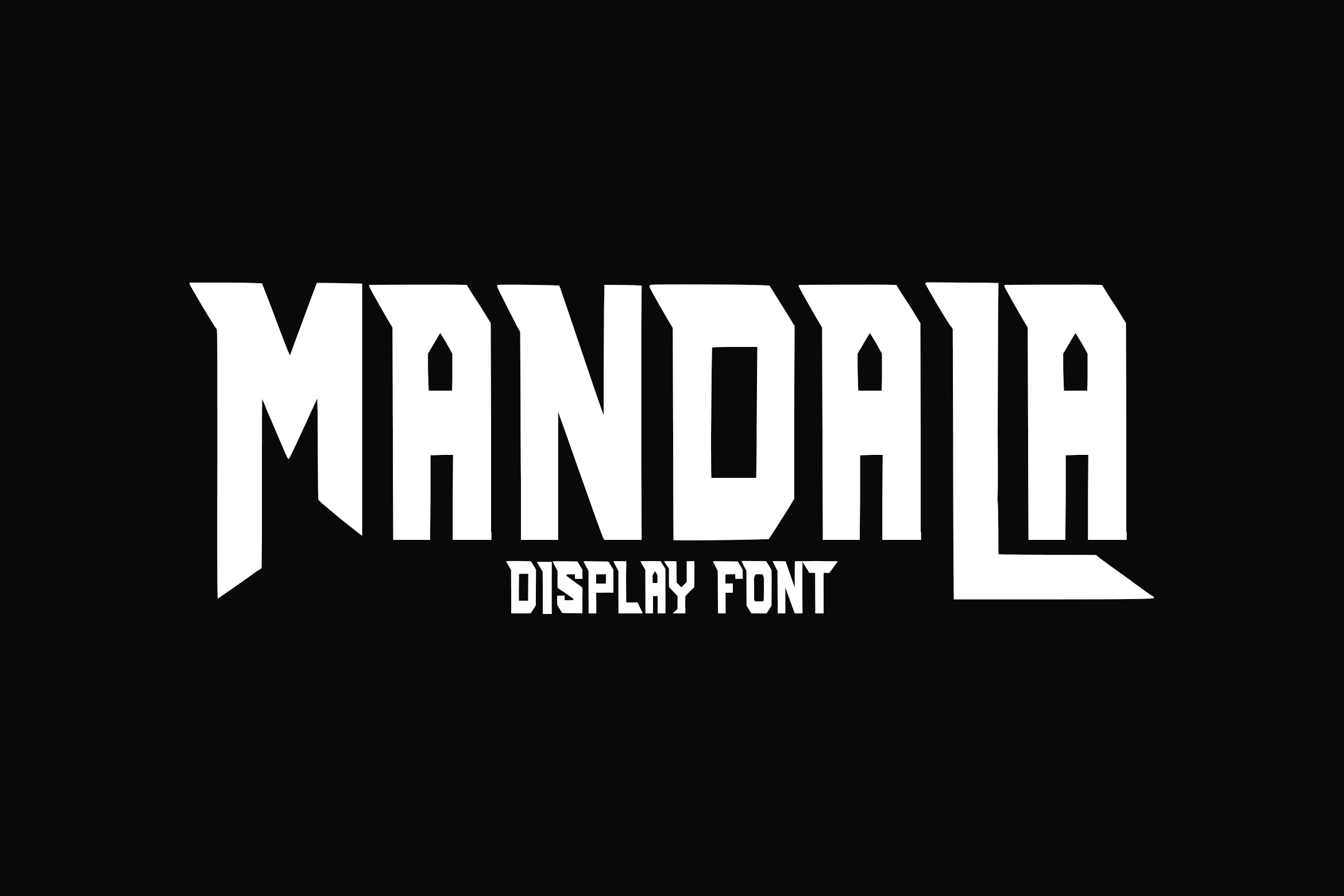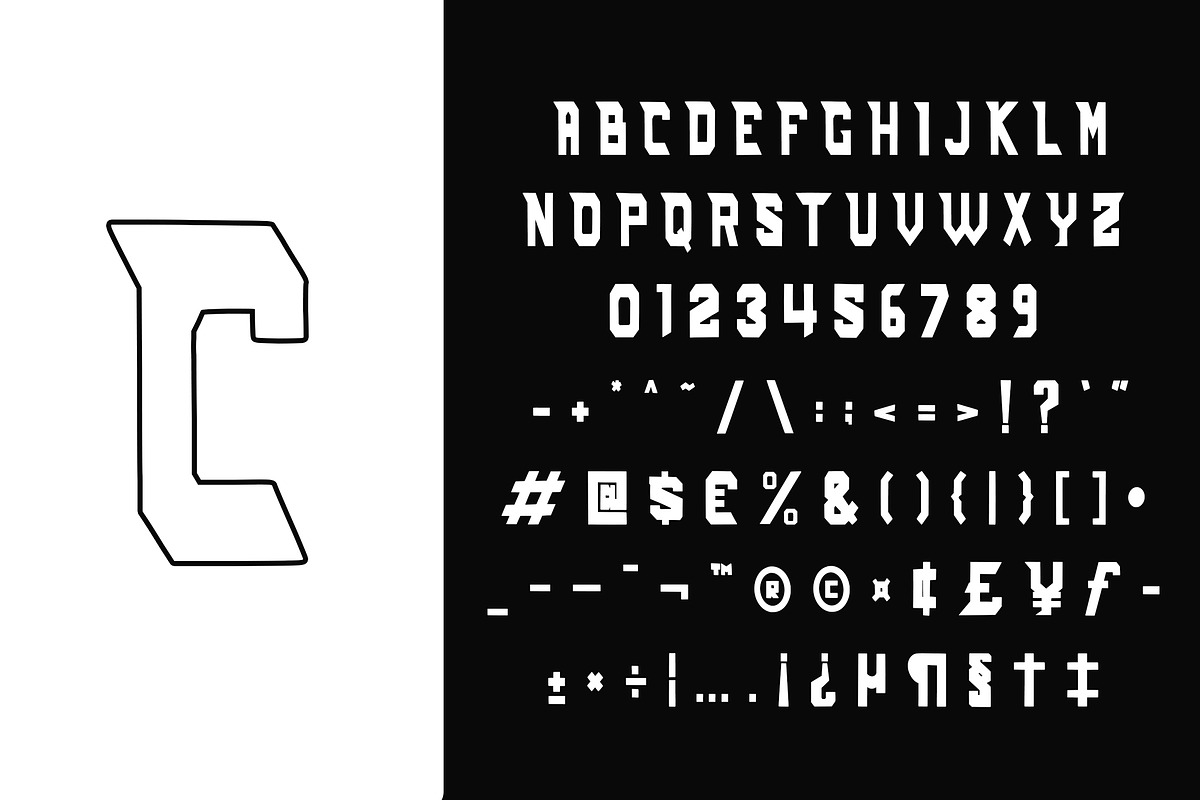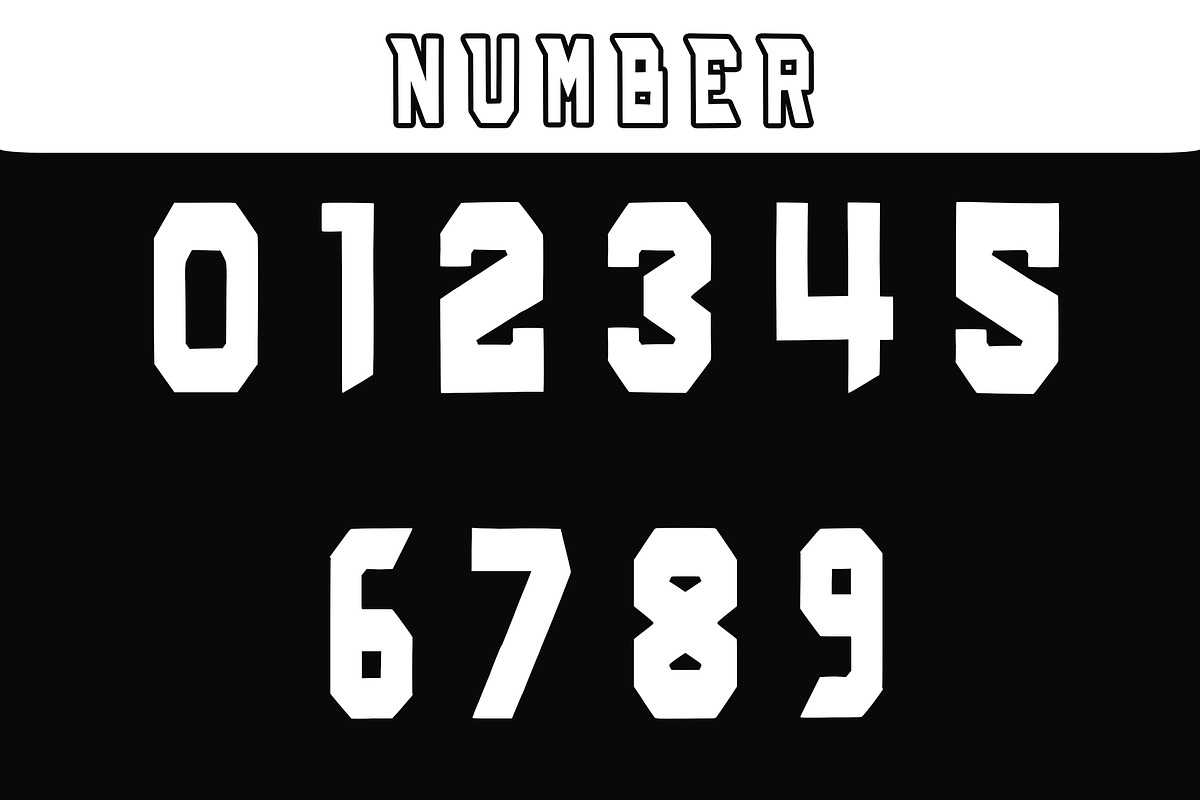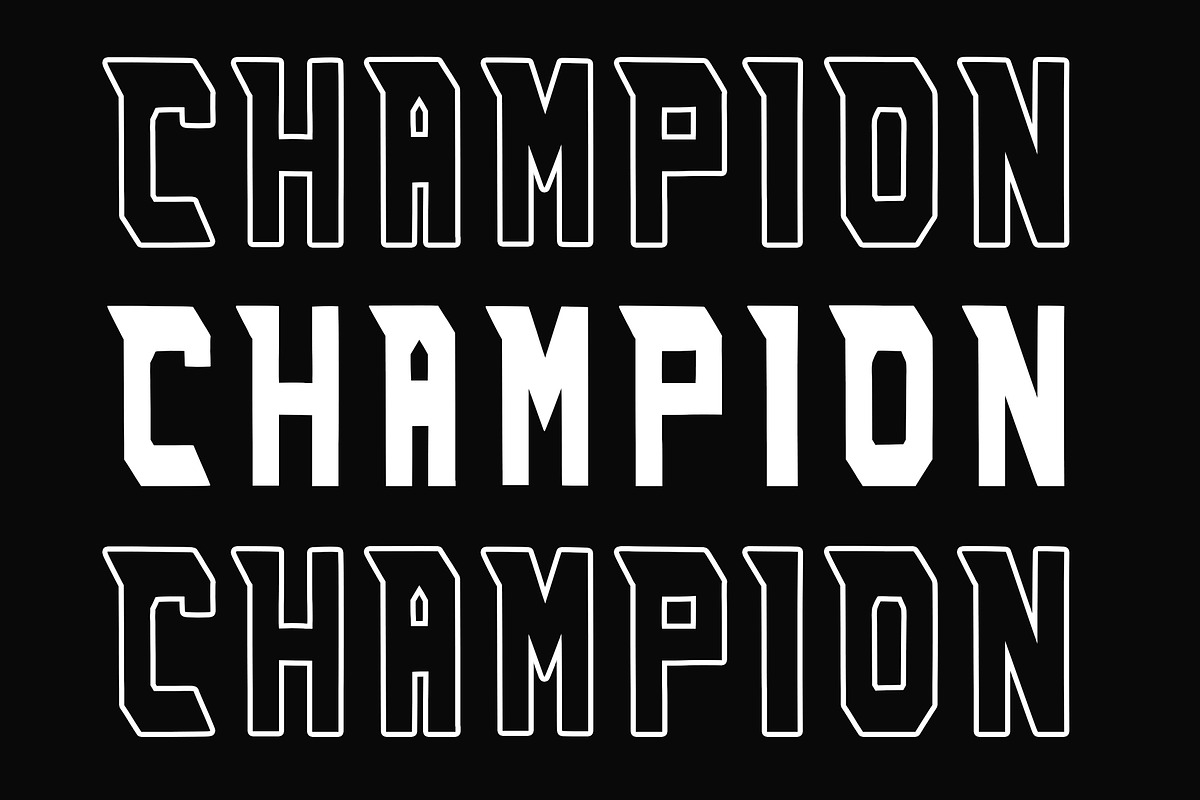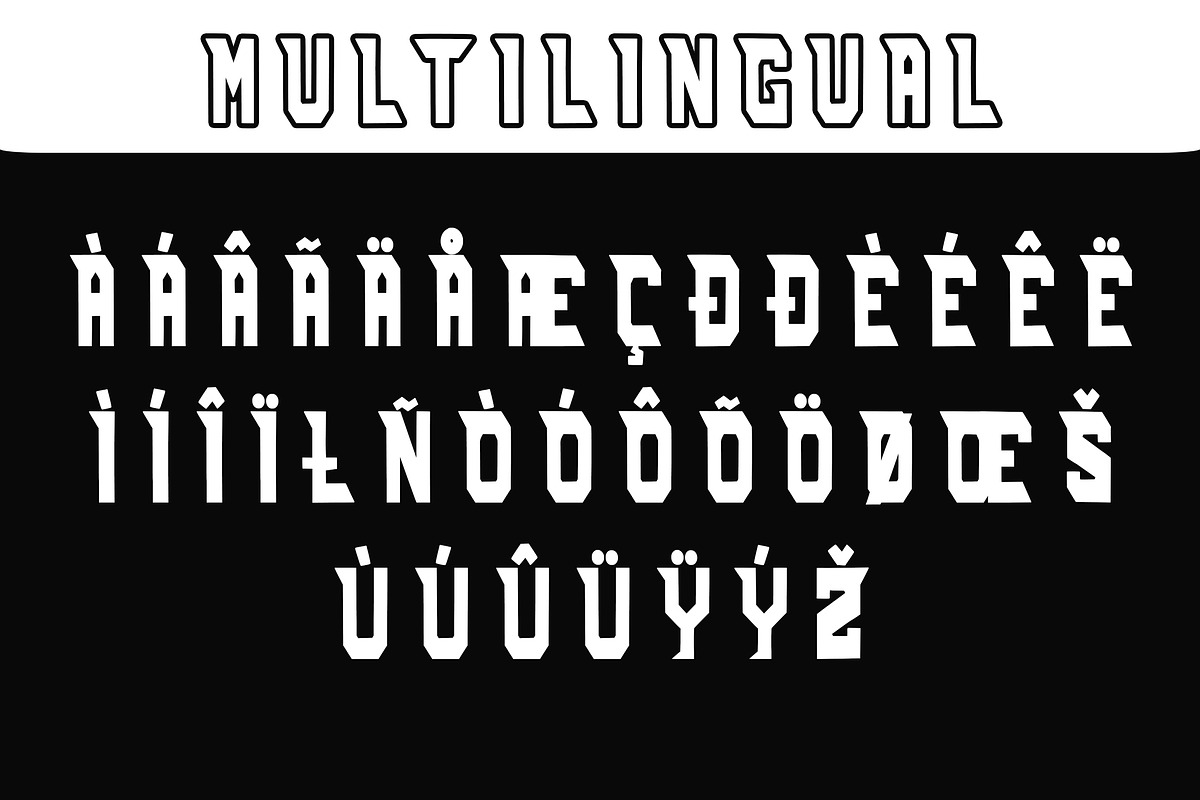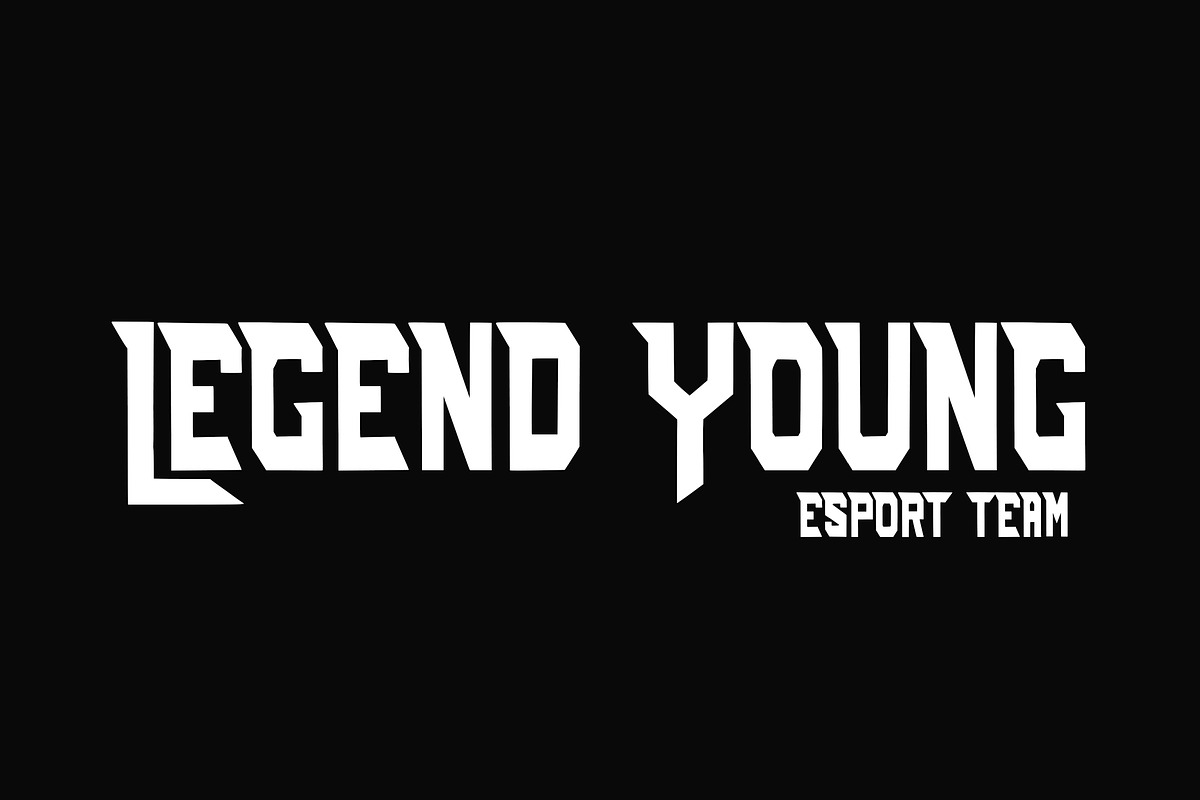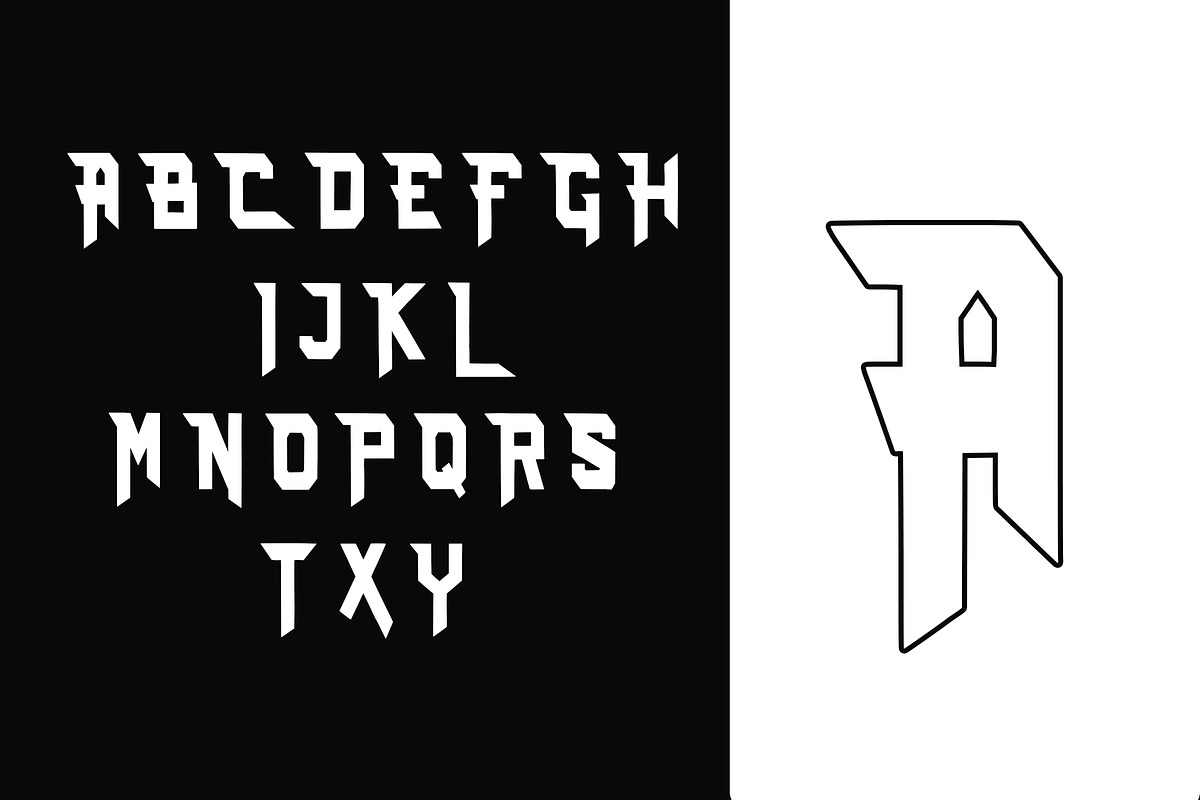
Mandala - Display Sport Font
Mandala is a very characteristic Display Font with a strong Sports theme and is very suitable for the Esport Logo as well
Mandala came with opentype features such stylistic alternates, stylistic sets & ligatures good for logotype, poster, badge, book cover, tshirt design, packaging and any more.